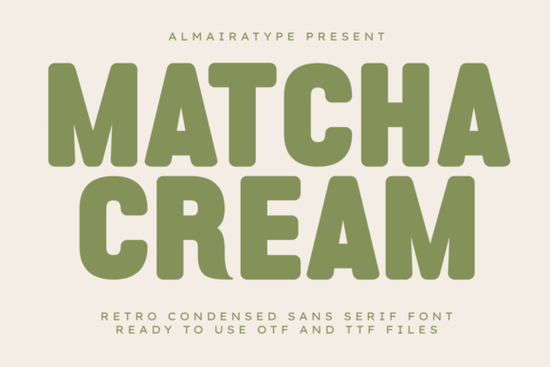
The Matcha Cream Font is a bold, retro condensed sans serif that brings a warm vintage personality to modern design work. Its compressed letterforms and rounded geometric shapes make it easy to read at a glance, whether it's on a t-shirt, a product label, or a social media post. If you've been searching for a typeface that balances nostalgia with a clean, professional finish, this one is worth your attention.
What makes a condensed retro font useful for modern projects?
Condensed fonts save horizontal space without sacrificing impact. That's especially helpful when you're designing packaging, apparel graphics, or headers where every inch matters. Matcha Cream takes that practical benefit and layers in a friendly, approachable vibe thanks to its rounded edges and soft geometry. It feels like a 70s-inspired typeface without looking outdated, which is a tricky balance that not every retro font manages to strike.
Because it's a sans serif design, it also avoids the readability issues that sometimes come with decorative or script-style fonts. You get character and warmth without losing clarity something that matters a lot when your text needs to work on screens and printed products alike.
Who is this font a good fit for?
Matcha Cream works well across several creative roles. Here are some of the people who tend to get the most out of a typeface like this:
- Print-on-demand sellers who need bold, eye-catching typography for t-shirts, mugs, and tote bags
- Small business owners building a brand identity for a coffee shop, bakery, or specialty food product
- Graphic designers working on posters, social media graphics, and packaging layouts
- Craft enthusiasts making custom stickers, decals, and vinyl projects with Cricut or Silhouette machines
- Independent clothing brands looking for a distinctive typeface that stands out in a crowded market
If any of those descriptions fit your work, the Matcha Cream font family could be a solid addition to your toolkit.
What types of designs does it work best for?
Based on its style and structure, Matcha Cream is a natural choice for projects that call for a warm, approachable, and slightly retro tone. Some specific examples include:
- Food and beverage branding think menu headers, coffee cup sleeves, and artisan product labels
- Trendy apparel graphics especially for lifestyle brands with a vintage or earthy aesthetic
- Social media content bold enough to stand out in a crowded feed
- Product packaging compressed letterforms help you fit more text into tight layouts
- DIY craft projects stickers, greeting cards, and personalized gifts
How does it compare to other condensed sans serif options?
Tip: Try setting Matcha Cream in all caps for headlines and mixed case for shorter text blocks. Its rounded shapes hold up well at larger sizes, but the caps tend to have the strongest visual impact on apparel and packaging designs.